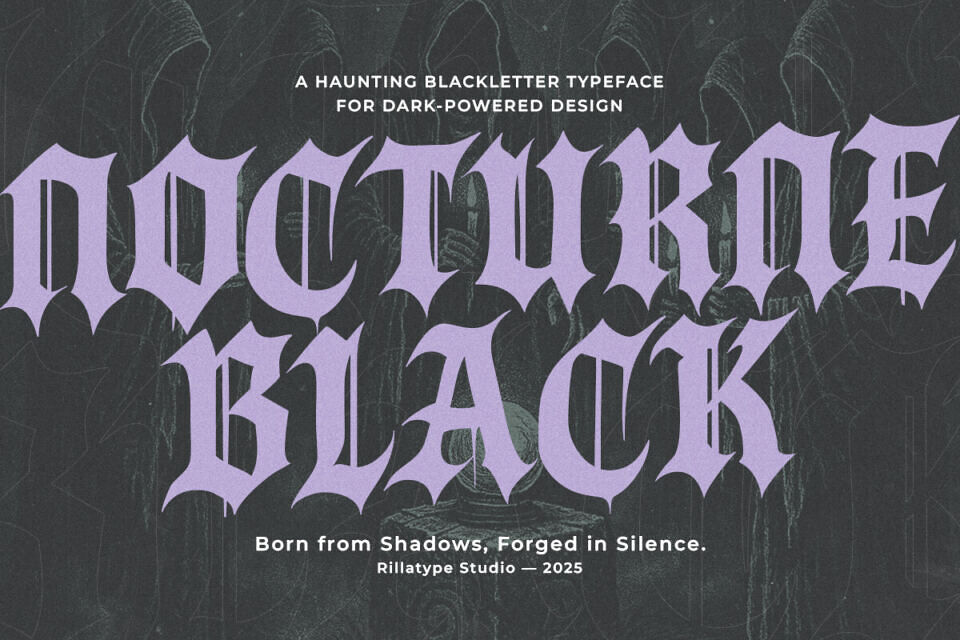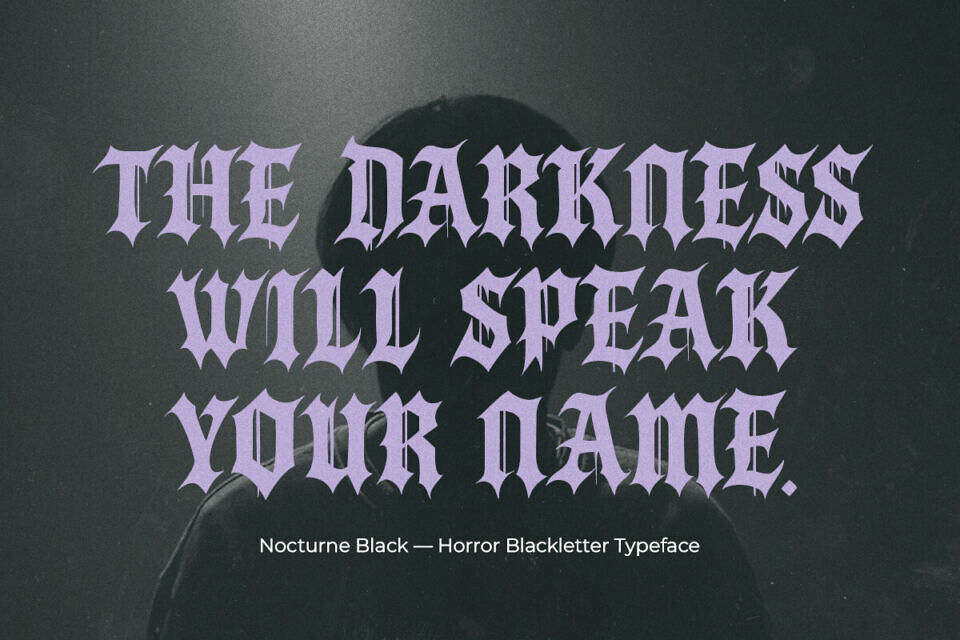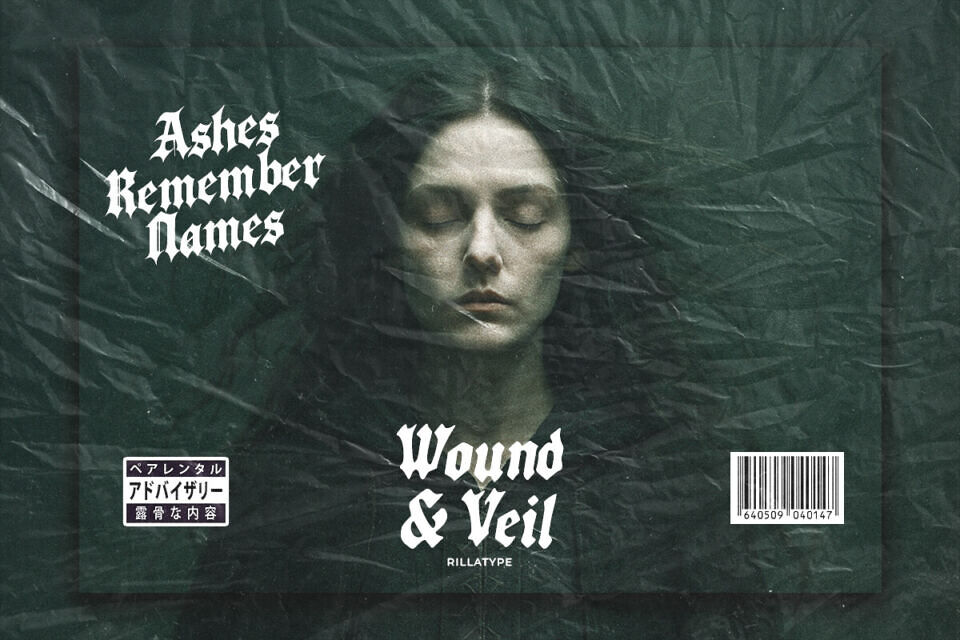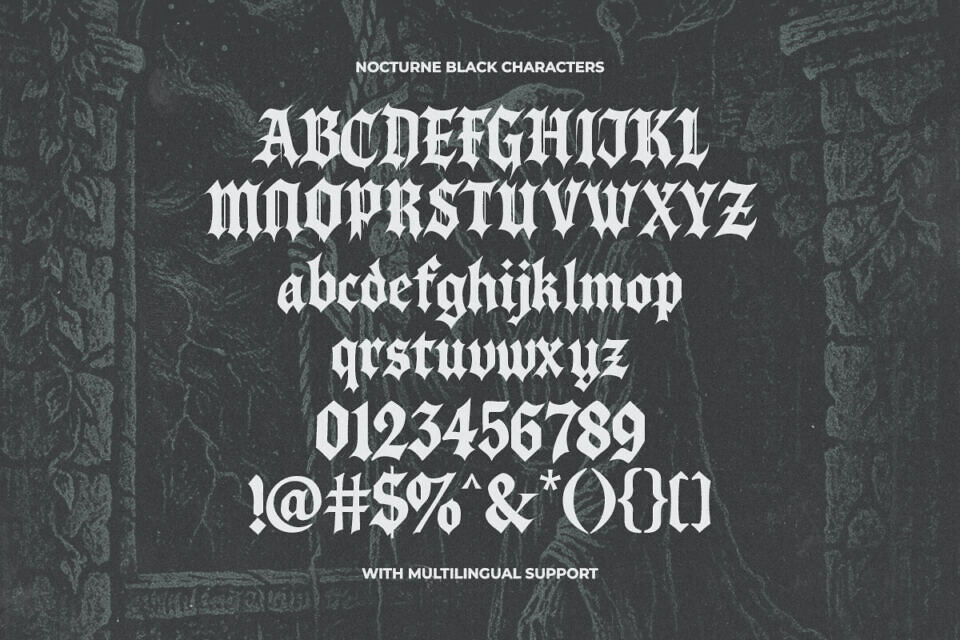
Nocturne Black is a powerful blackletter typeface with dark gothic flair. This font family includes four styles: Regular, Slanted, Inked, and Inked Slant — each crafted to elevate horror-themed designs with elegance and edge.
Perfect for Halloween invitations, metal posters, eerie branding, or anything that needs a chilling impact. Nocturne Black combines sharp calligraphic strokes with expressive hand-drawn texture in the Inked styles. From cinematic titles to tattoo designs, it adapts to various dark aesthetics. Includes full uppercase, lowercase, numbers, and punctuation.